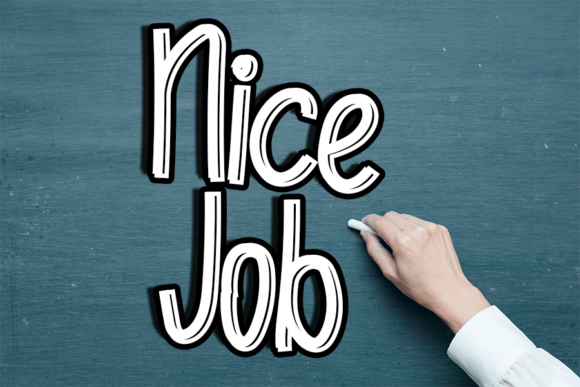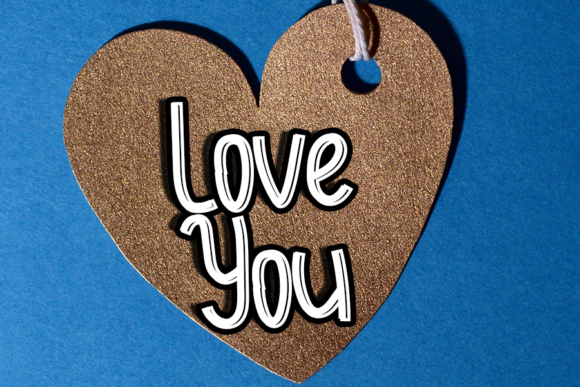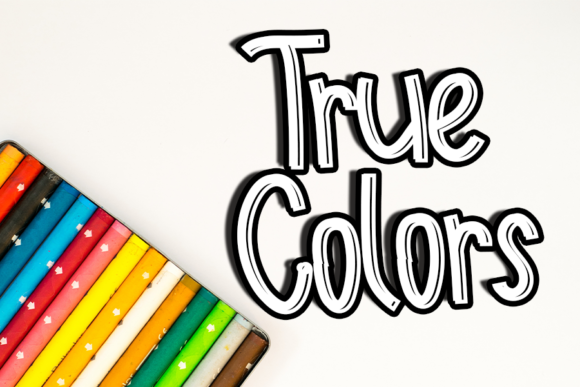
Introduction to Red Valentine Font
As a designer, there’s nothing quite like the thrill of bringing a creative project to life. Whether it’s a wedding invitation, a birthday card, or a romantic gesture, the right font can make all the difference. For those looking to add a touch of whimsy and romance to their designs, I’m excited to introduce you to the delightful Red Valentine Font.
With its dainty, handwritten style, this font is perfect for designers seeking a high-quality, free download that exudes a sense of joy and playfulness. The Red Valentine Font is a versatile design resource that can be used in a variety of creative projects, from wedding stationery to social media graphics. Its transparent background and high-quality design make it an ideal choice for designers looking to add a touch of elegance to their work.
In this article, we’ll delve into the world of the Red Valentine Font and explore its many uses and benefits.
Key Features of Red Valentine Font
- High-quality, vector-based font designed for creative projects, available as a free download.
- Features a transparent background, making it suitable for use on various design resources, including web and print materials.
- Includes a range of font styles, including bold and regular weights, to cater to different design requirements.
- Resolution-independent, ensuring crisp and clear text output regardless of the resolution or screen size.
- Designed with a unique, elegant aesthetic, making it perfect for romantic and festive themes, such as Valentine’s Day.
Honest Review: Red Valentine Font
I recently stumbled upon the Red Valentine Font, and I must say it’s a fantastic addition to any design resource. Its elegant and romantic vibe makes it perfect for creative projects, especially those with a touch of Valentine’s Day flair.
One of the standout features of this font is its high-quality design, with smooth lines and a transparent background that makes it easy to layer with other elements. ✨
Here are some of the key features that caught my attention:
- High-quality design with smooth lines
- Perfect for creative projects with a romantic theme
While the Red Valentine Font is a great addition to any design resource, there are a few limitations to keep in mind:
- Only available in a single weight, which may limit its versatility
- May not be suitable for large-scale text or headlines
Overall, I’m impressed with the Red Valentine Font and would highly recommend it for any design project that needs a touch of elegance and romance. With its high-quality design and transparent background, it’s a great resource to have in your toolkit.
Tips for Getting the Most Out of the Red Valentine Font
Use the font on a transparent background to create a beautiful, eye-catching design. Experiment with different font sizes and colors to add depth and interest to your design.
The Red Valentine Font is perfect for romantic Valentine’s Day designs, wedding invitations, and love-themed creative projects. You can also use it for general design purposes, such as headers and titles.